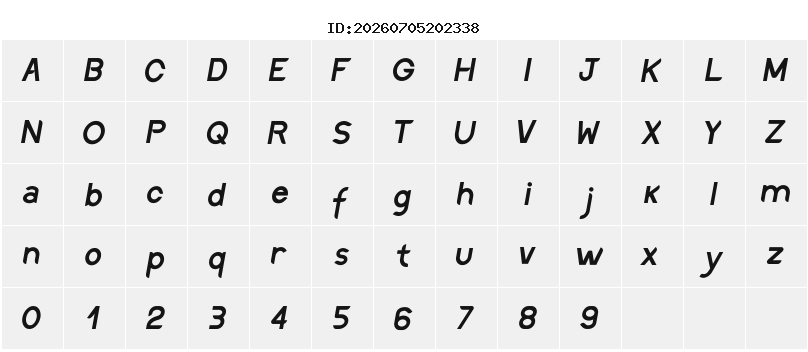
Discreet SemBd Preview
• Font Name: Discreet SemBd
• Font Style: SemiBold Inclined
• Full Font Name: Discreet SemiBold Inclined
• Designer: TT
About Discreet SemBd.ttf
Discreet SemBd.ttf is a modern, elegant sans-serif font designed for ultimate readability and visual harmony. Perfect for branding, headlines, web design, and print materials.